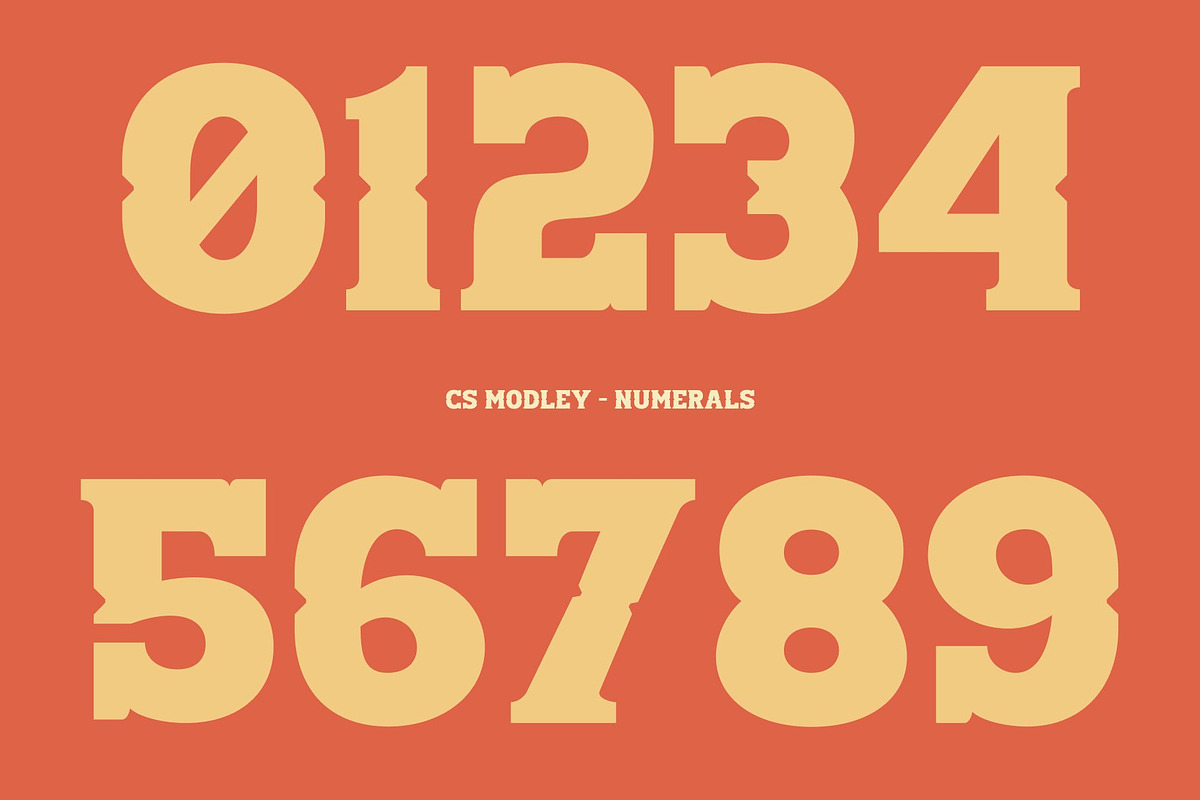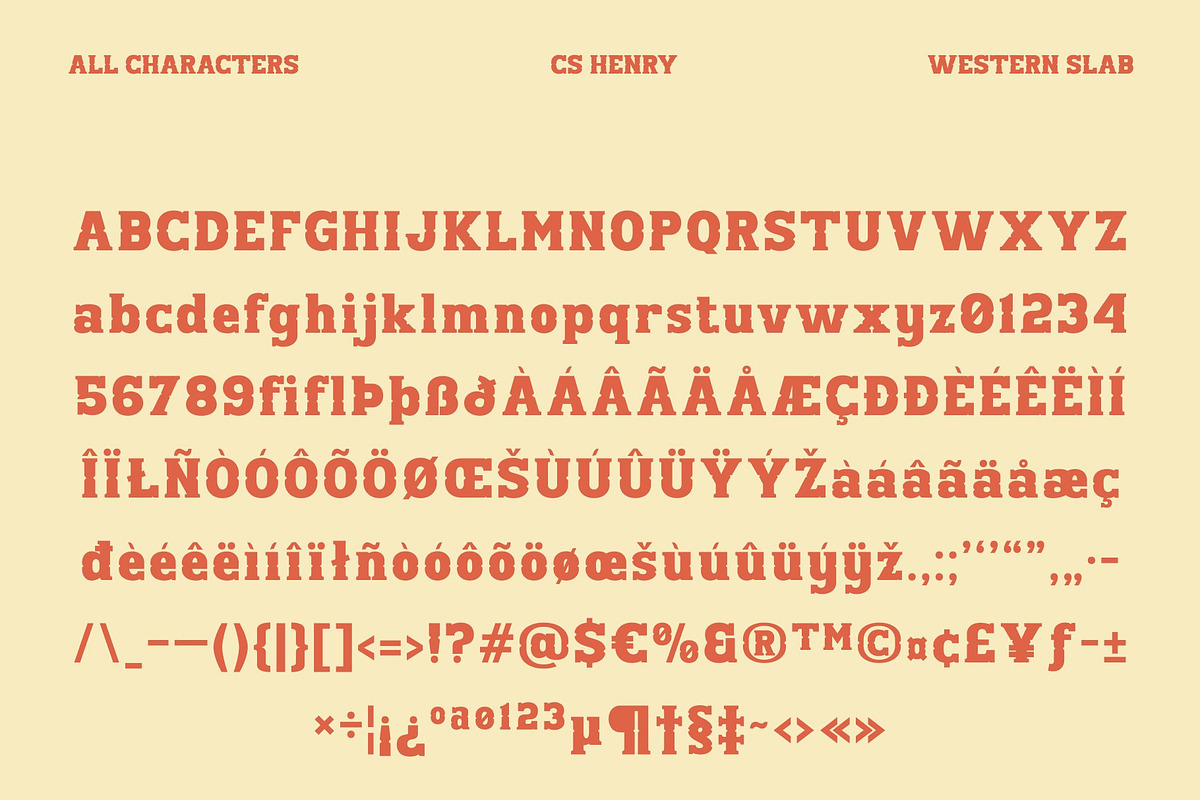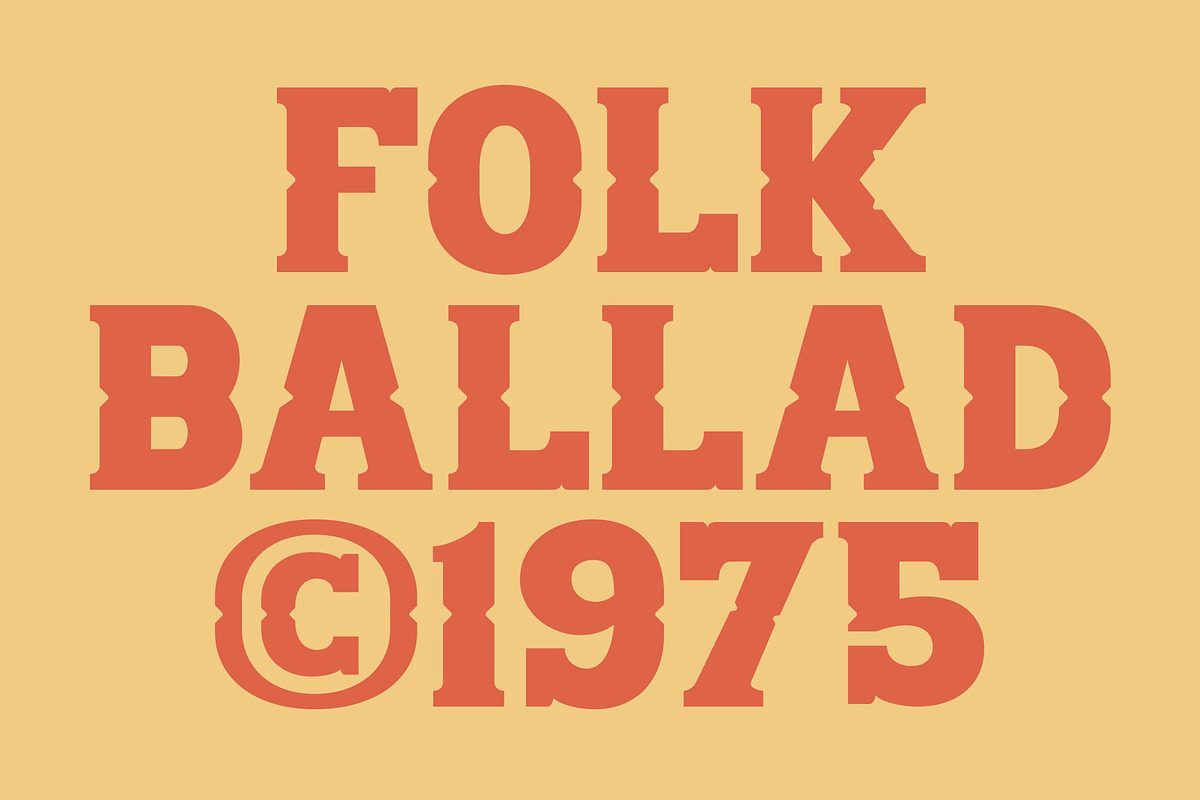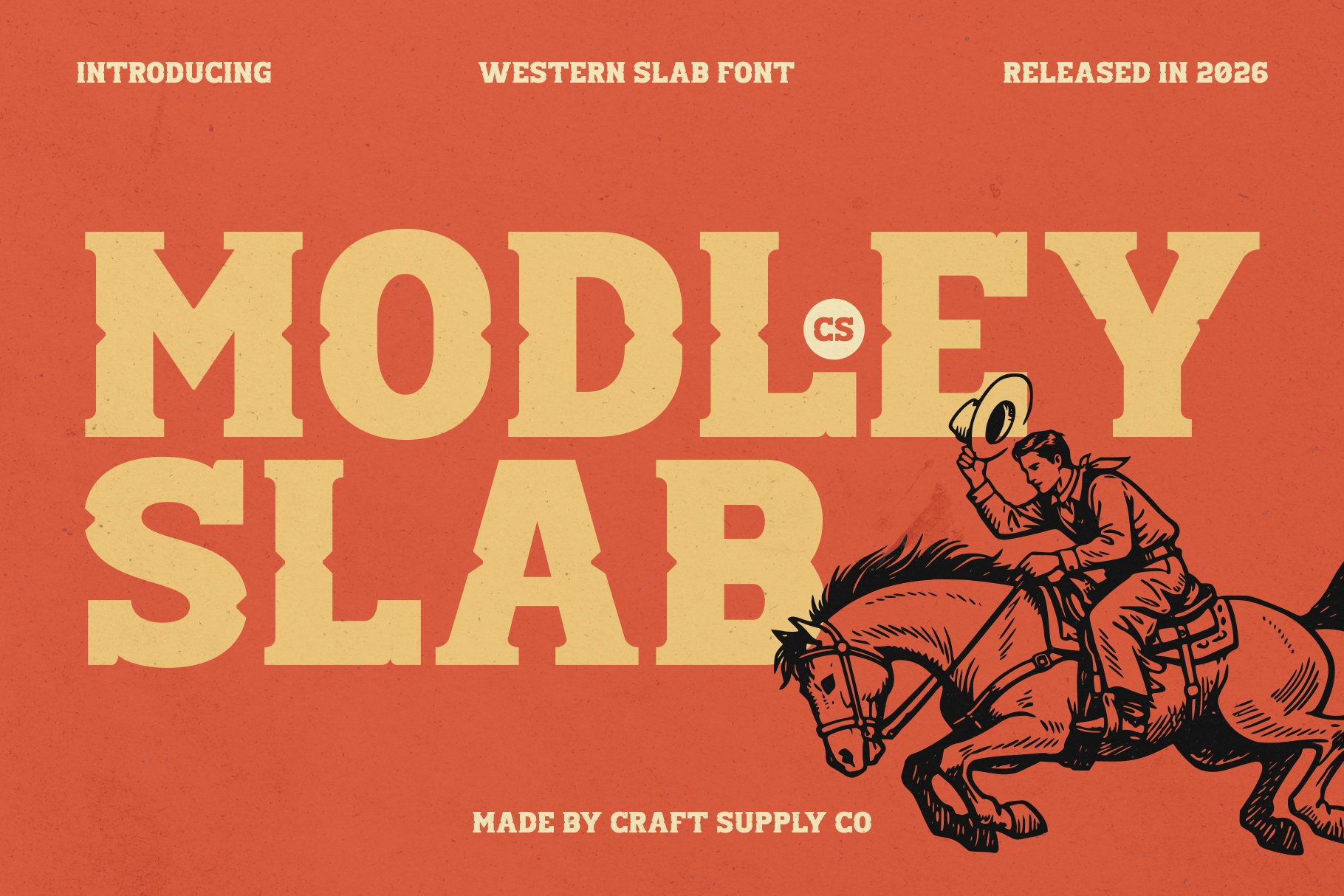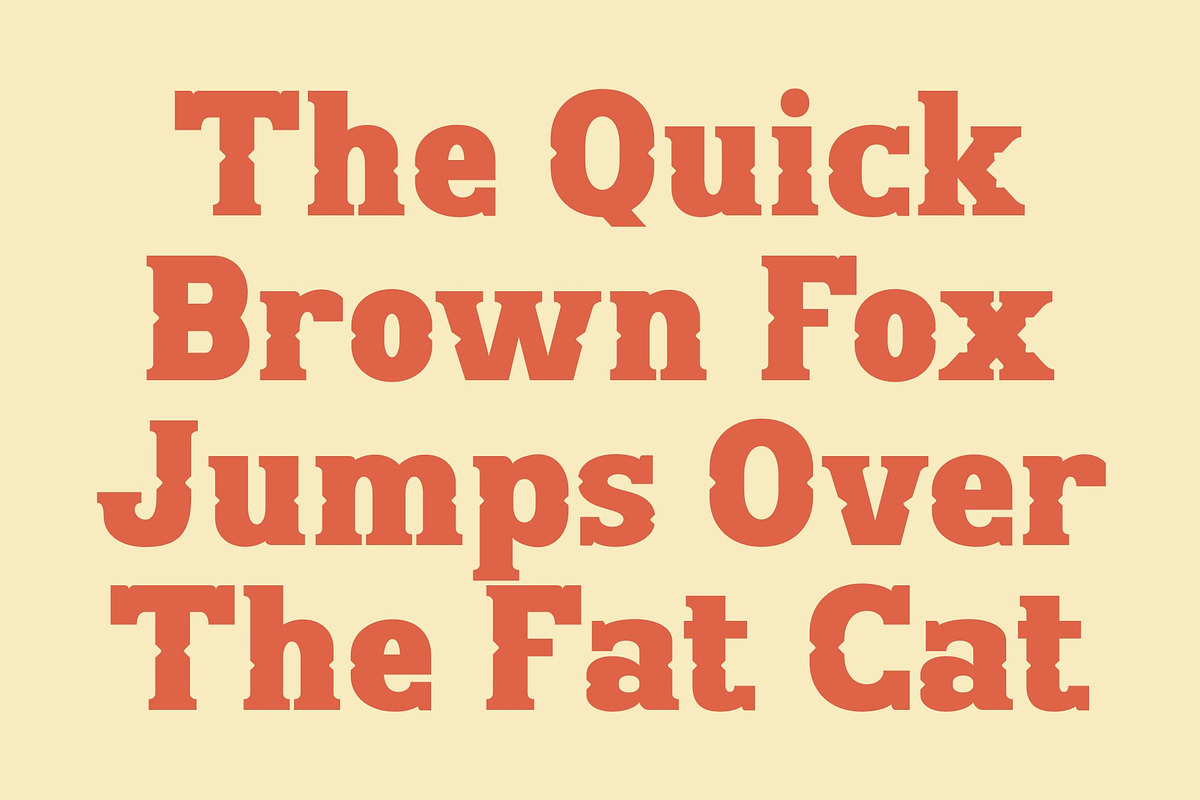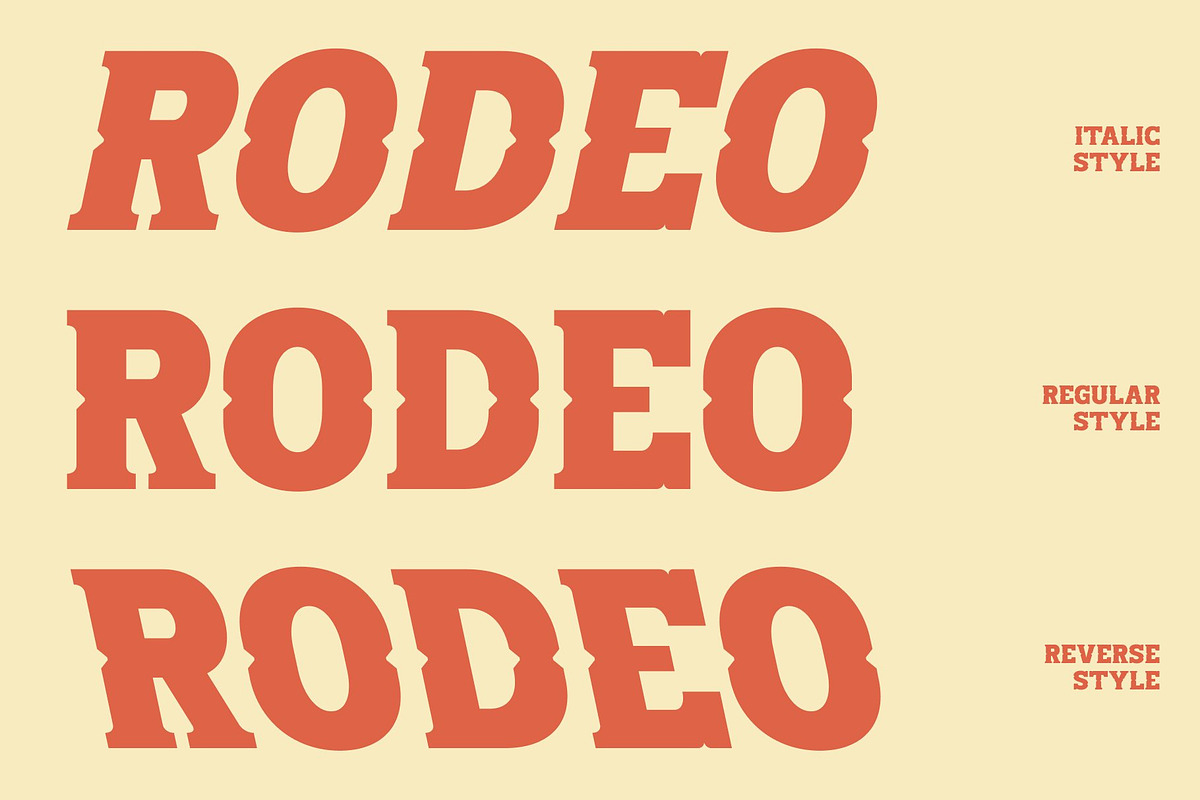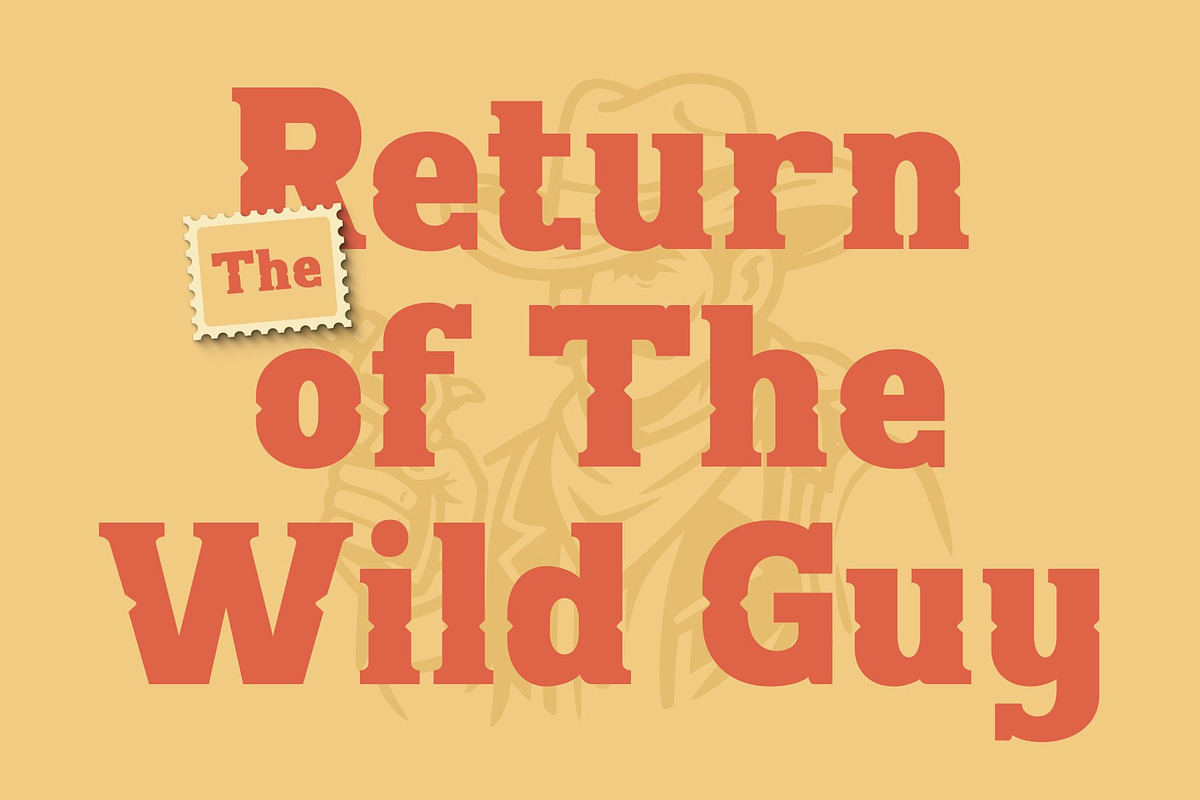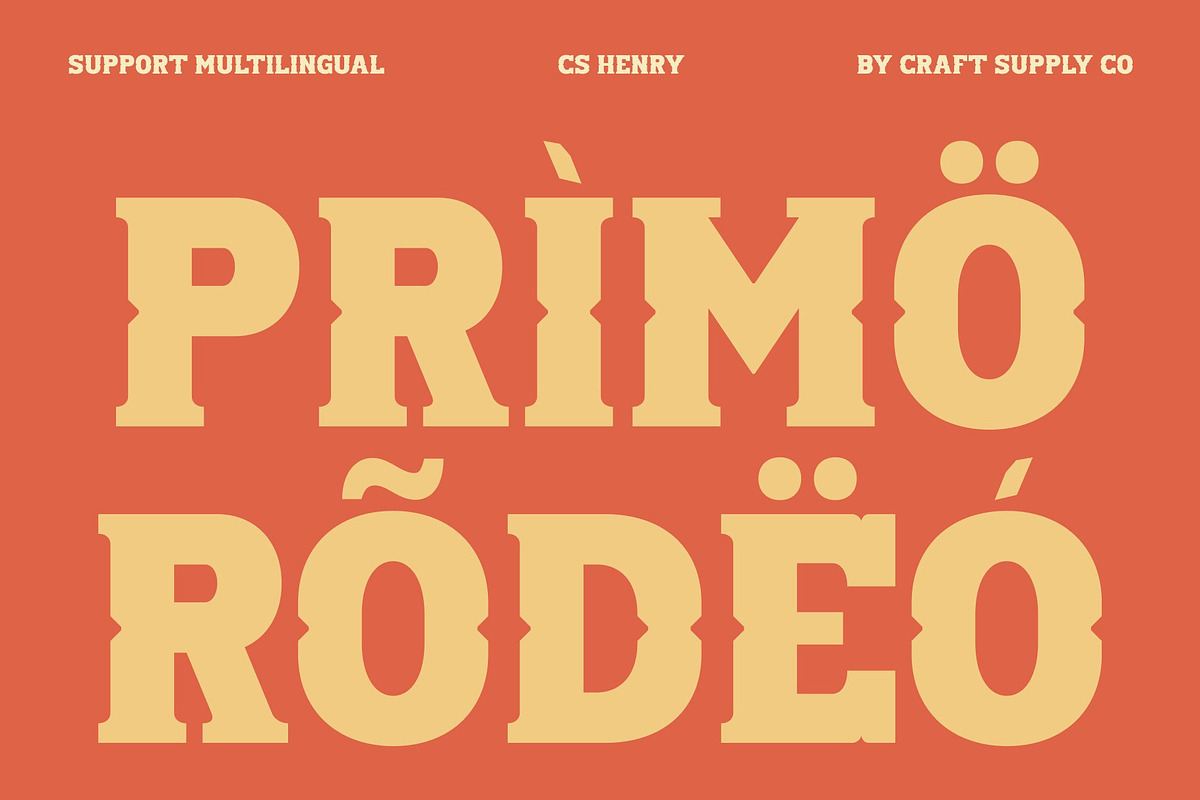
CS Modley – Western Font
CS Modley – Western Display with Rugged Frontier Spirit
Rugged Display Font Inspired by the Wild West This is a bold display font that channels the unmistakable spirit of the Wild West. Inspired by vintage frontier signage, this typeface delivers a strong, rugged personality rooted in history and adventure. Its commanding presence instantly evokes images of dusty towns, wooden signboards, and classic western storytelling.
Slab-Like Serifs with Wide Letterforms The defining features of are its slab-like serifs and wide letterforms. These solid shapes create a powerful visual weight that feels tough, dependable, and unapologetically bold. The wide proportions enhance legibility while reinforcing a strong, grounded character that reflects traditional western typography.
Bold Character with Vintage Grit This font captures cowboy grit through its sturdy construction and confident stance. The font feels raw yet controlled, combining vintage charm with display-level impact. Its rugged details add authenticity, making designs feel handcrafted, nostalgic, and full of personality without losing clarity.
Perfect for Western and Vintage-Themed Projects Ideal for posters, branding, packaging, and vintage-themed projects, shines in headlines and statement typography. Whether used for western branding, retro posters, apparel graphics, or rustic product designs, it delivers bold western flair and a memorable frontier-inspired presence that stands strong in any composition.
CS Modley Regular
CS Modley Italic
CS Modley Reverse Italic